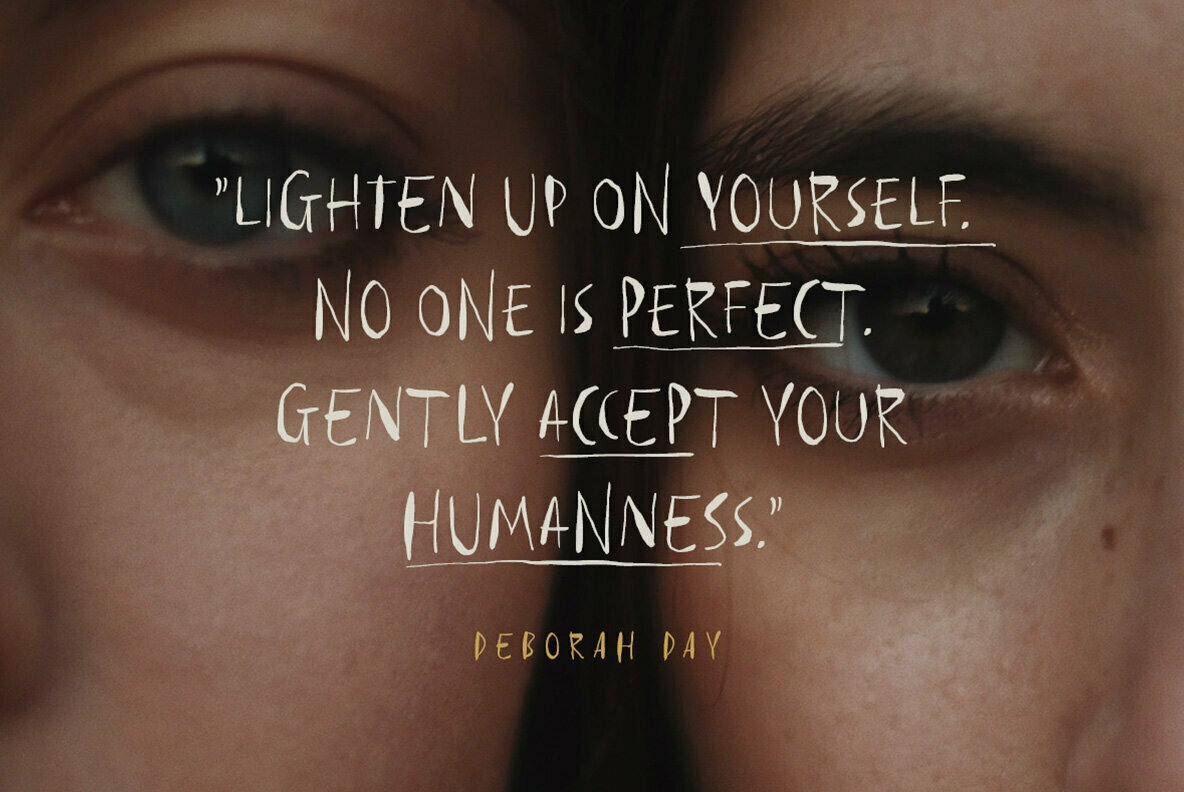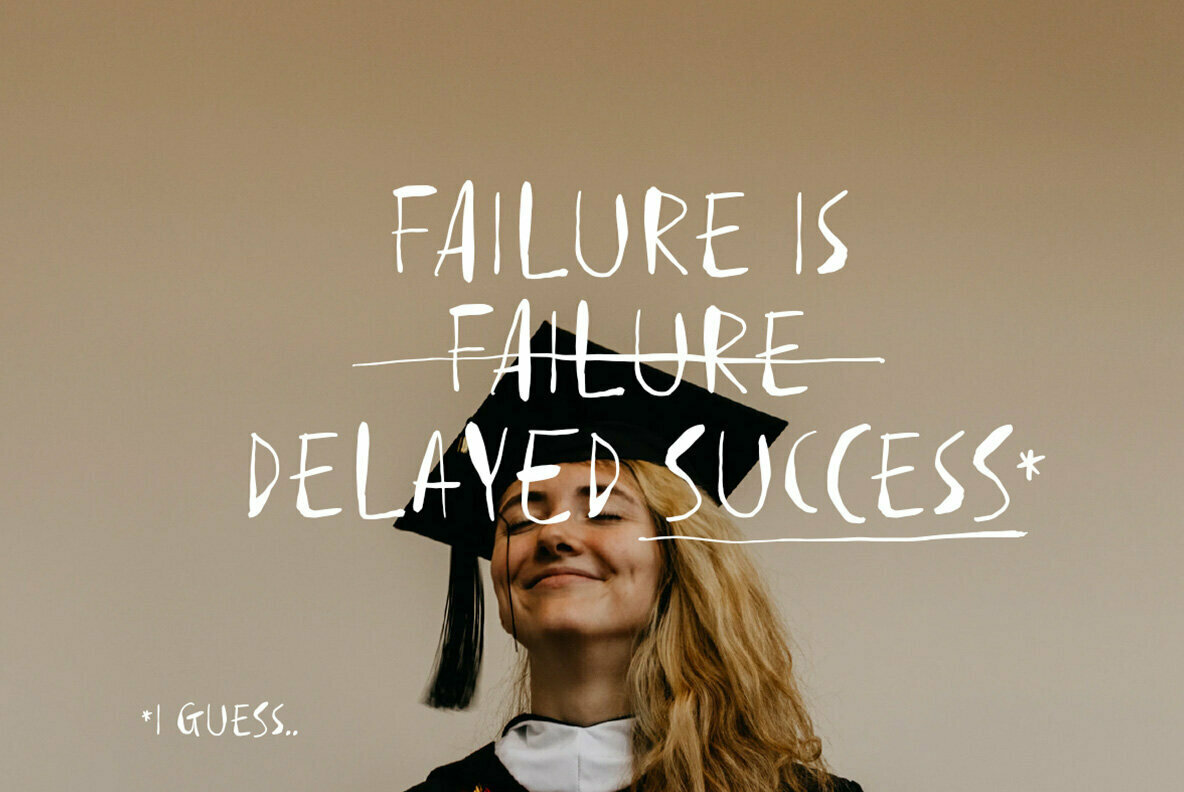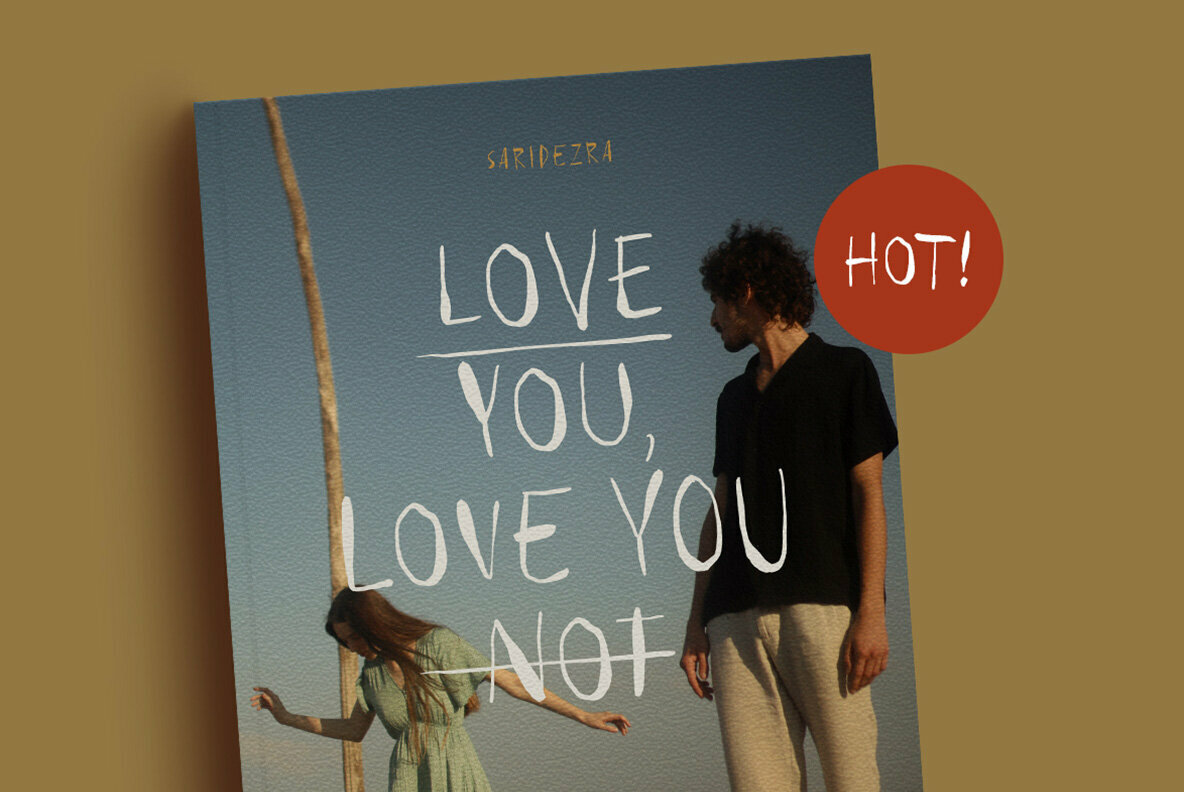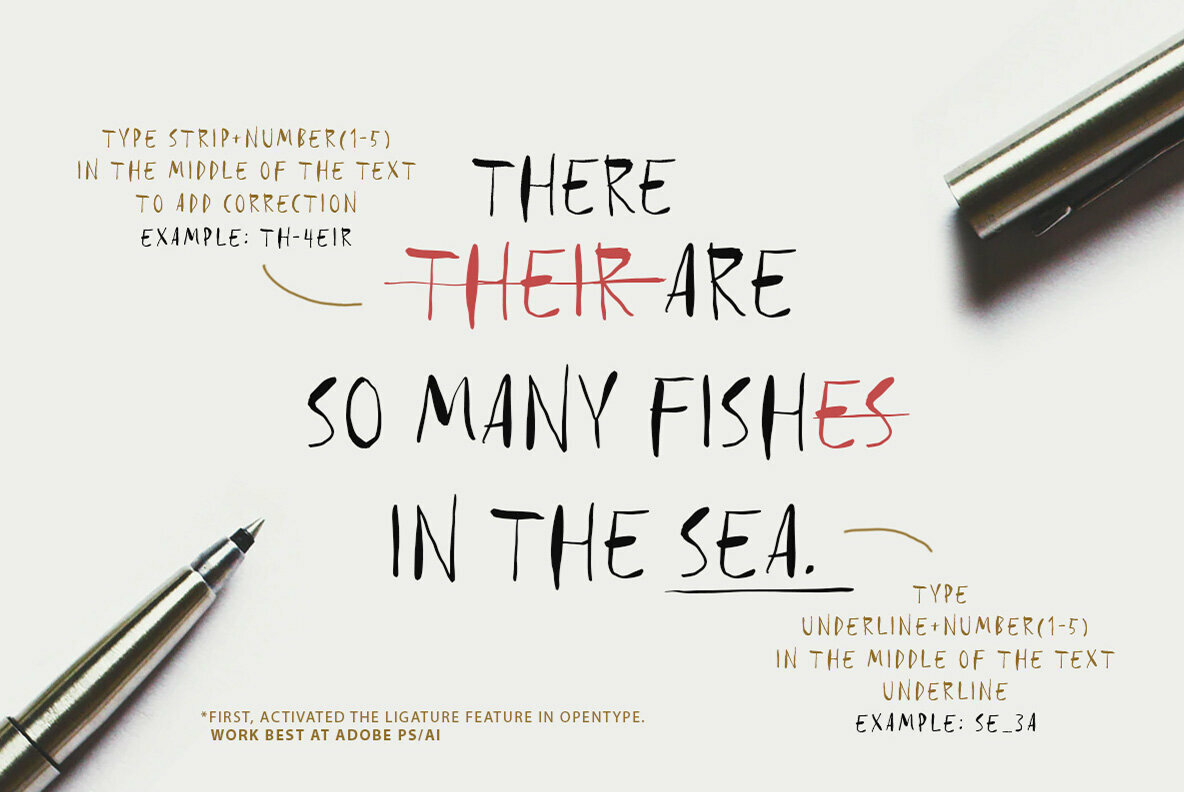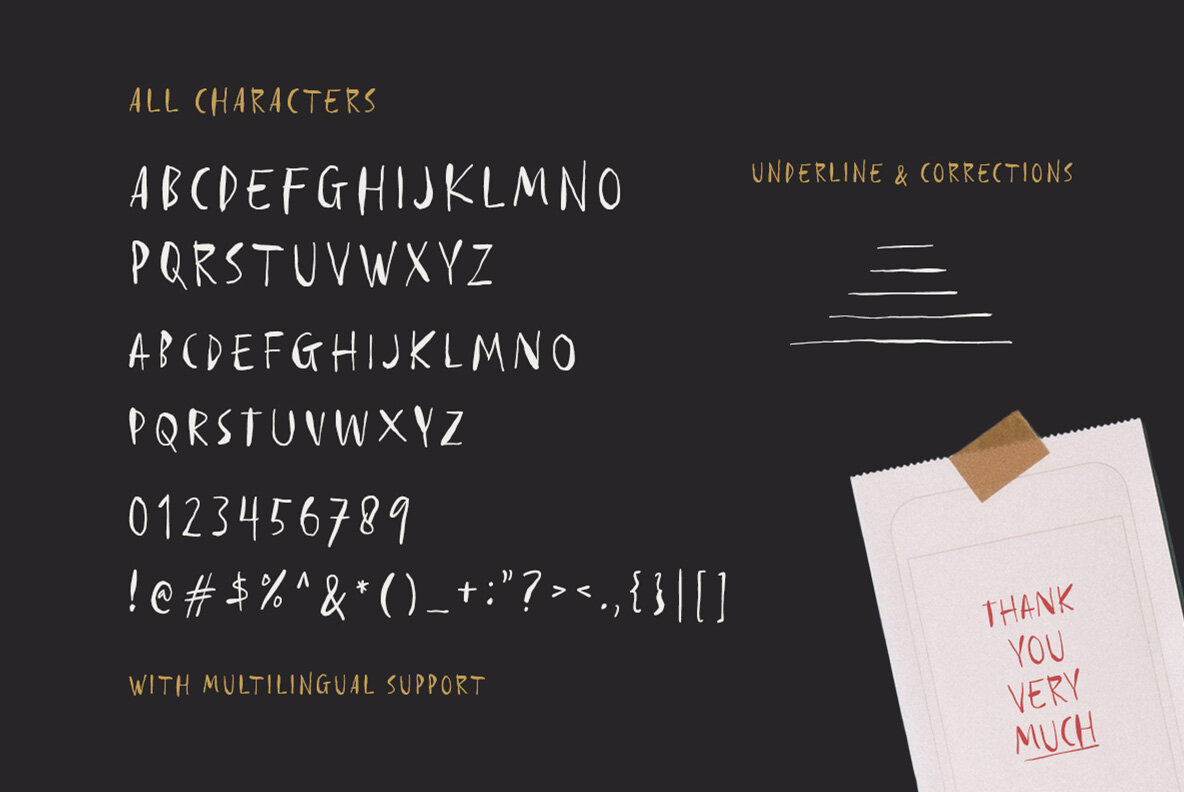
Reminder Notes Font
Reminder Notes Regular
Handwritten typography brings a personal touch to various design projects. The Reminder Notes font combines playful elements and versatility. Known for its unique ability, this font allows you to seamlessly add doodles, correction lines, and underlines to specific words. Ideal for quotes, book covers, or social media posts, Reminder Notes offers a wide range of uses.Reminder Notes: Handwriting Font With Expressive Details
With its special features, Reminder Notes stands out, making it an adaptable and creative choice for your typographic needs.